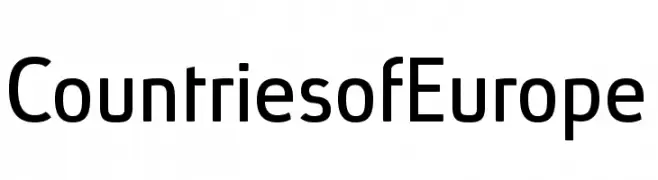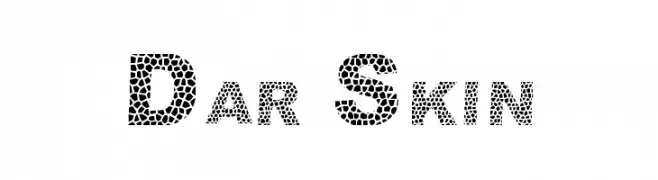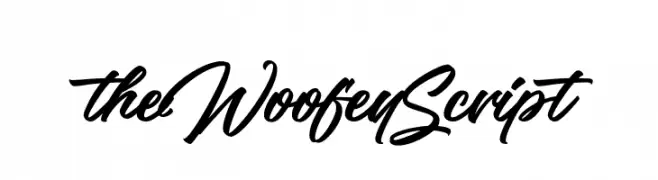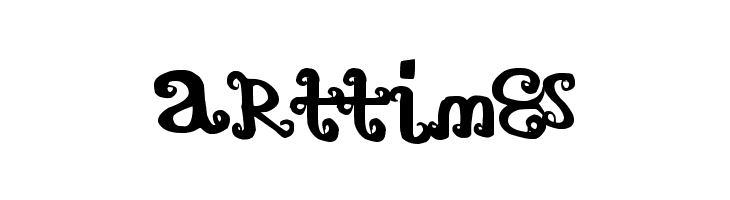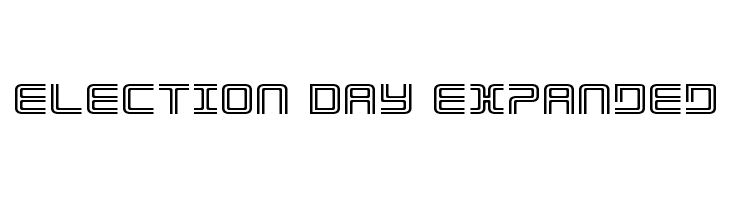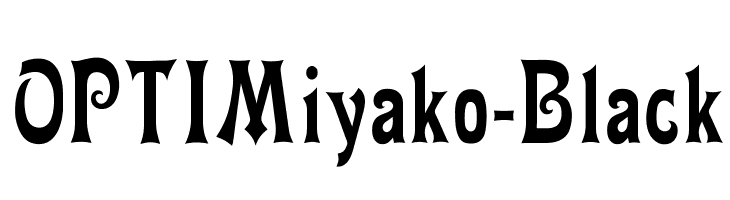
A modern, geometric sans-serif font with clean lines and uniform strokes.
A bold, modern geometric font ideal for impactful headlines and branding.
A bold, decorative font with a mosaic-like pattern, ideal for striking visual designs.
A bold, distressed stencil-style font with a vintage industrial feel.
An elegant, flowing script font with cursive and calligraphic elements.
A bold, playful font with high contrast and rounded shapes, perfect for decorative use.
A bold, aggressive font with sharp, jagged edges and a tribal flame-like design.
A bold, distressed serif font with a vintage, weathered appearance.
A dynamic and elegant script font with flowing, interconnected characters.